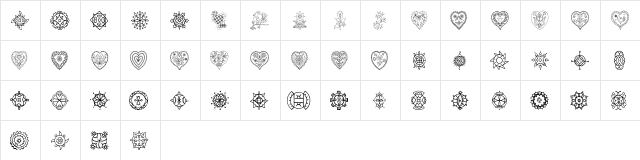
Treasury of Design Regular
Design Context for Treasury of Design Typeface
Treasury of Design is a composed and adaptable typeface that performs quietly and consistently across a wide range of design contexts.